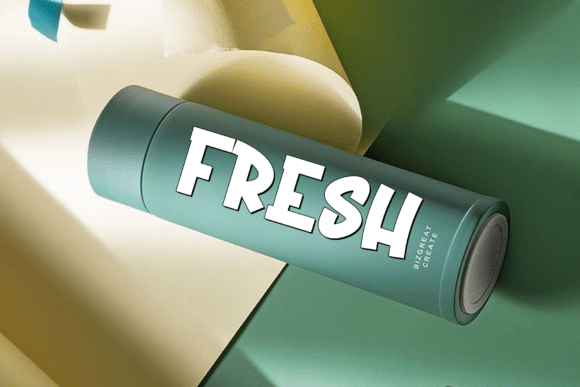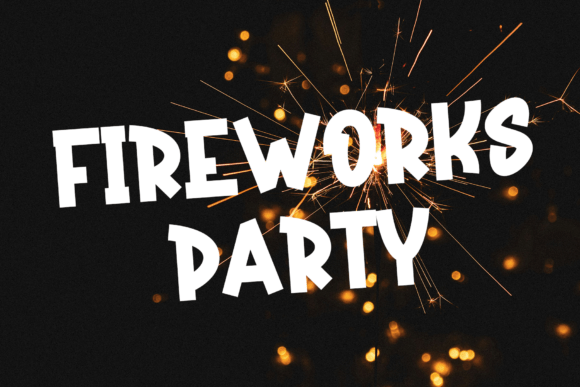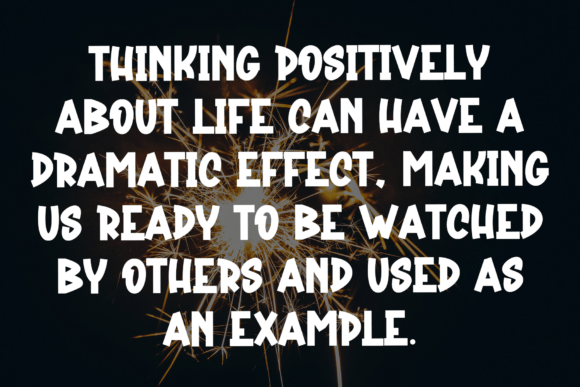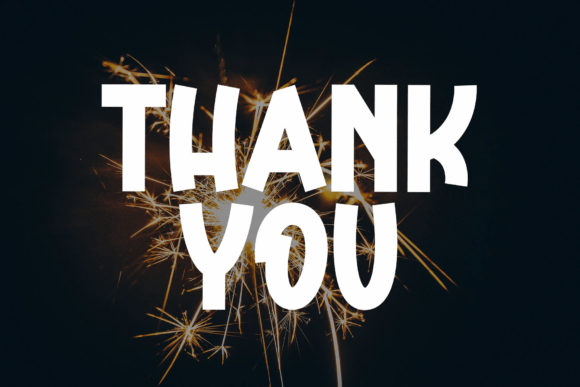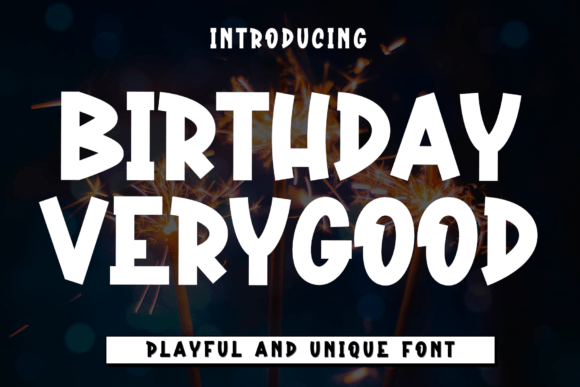
Introducing Birthday Verygood Font: The Perfect Blend of Clarity and Relaxed Style
Are you on the hunt for a font that embodies the perfect balance of modern sophistication and laid-back charm? Look no further than the Birthday Verygood Font. This neat and casual display font is specifically designed to bring a friendly, approachable vibe to your designs, making it an excellent choice for a wide range of projects.
Clean Lines, Friendly Letterforms
One of the standout features of the Birthday Verygood Font is its clean lines and friendly letterforms. The font’s designer has carefully crafted each character to ensure that it is not only highly legible but also visually appealing. The result is a font that feels both modern and approachable, perfect for designers who want to create a lasting impression without coming across as too formal or stuffy.
Ideal for a Variety of Design Projects
So, what types of projects are best suited to the Birthday Verygood Font? The answer is: a wide range! This versatile font is perfect for:
- Headlines: Add a touch of personality to your headlines with the Birthday Verygood Font’s playful energy and balanced structure.
- Posters: Create eye-catching posters that grab attention and leave a lasting impression.
- Packaging: Add a friendly, approachable feel to your product packaging with this charming font.
- Branding: Use the Birthday Verygood Font to create a cohesive brand identity that feels both modern and laid-back.
What Sets Birthday Verygood Apart
So, what sets the Birthday Verygood Font apart from other display fonts on the market? Here are just a few key features that make it an excellent choice for designers:
- Balanced structure: The Birthday Verygood Font has a carefully balanced structure that ensures it remains highly legible, even at larger sizes.
- Playful energy: This font has a playful, energetic vibe that adds personality to any project.
- Clean lines: The font’s clean lines and friendly letterforms make it perfect for designs that require a modern, approachable feel.
Perfect for Designs that Call for Style and Readability
One of the biggest challenges designers face is finding a font that balances style with readability. The Birthday Verygood Font rises to this challenge with ease, providing a perfect blend of both. Its clean lines and balanced structure ensure that it remains highly legible, even at larger sizes, while its playful energy and friendly letterforms add a touch of personality to any project.
Tips for Using the Birthday Verygood Font
To get the most out of the Birthday Verygood Font, here are a few tips to keep in mind:
- Experiment with different sizes: The Birthday Verygood Font remains highly legible at a range of sizes, so don’t be afraid to experiment with different sizes to find the one that works best for your project.
- Pair it with other fonts: The Birthday Verygood Font pairs well with a range of other fonts, so try combining it with other fonts to create a unique look.
- Use it to add personality: The Birthday Verygood Font is all about adding personality to your designs, so don’t be afraid to use it to add a touch of whimsy or playfulness to your project.
In conclusion, the Birthday Verygood Font is an excellent choice for designers who want to add a touch of personality to their projects. Its clean lines, friendly letterforms, and balanced structure make it perfect for a wide range of design projects, from headlines and posters to packaging and branding. With its playful energy and high legibility, this font is sure to become a go-to choice for designers who want to create modern, laid-back designs that feel both stylish and approachable.